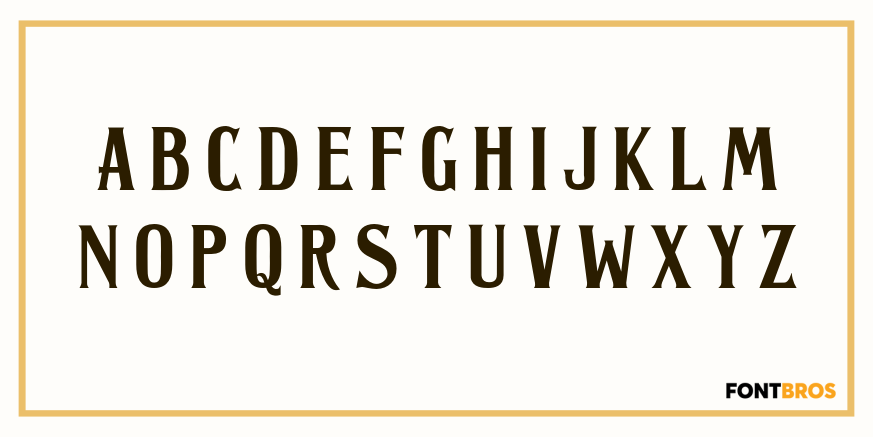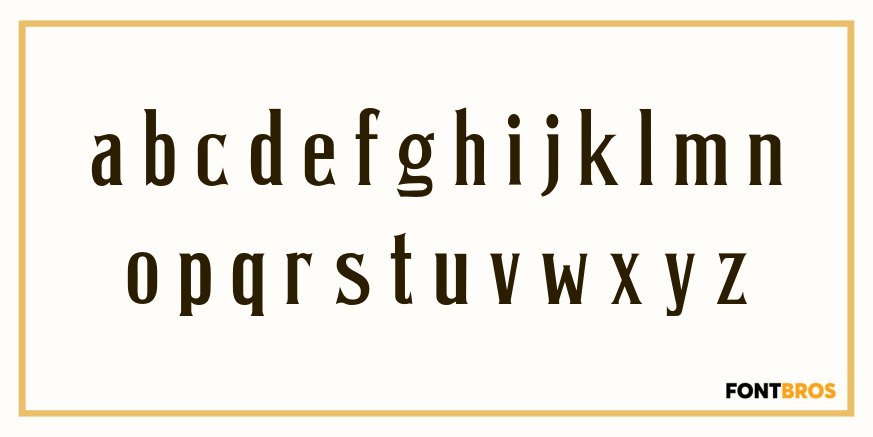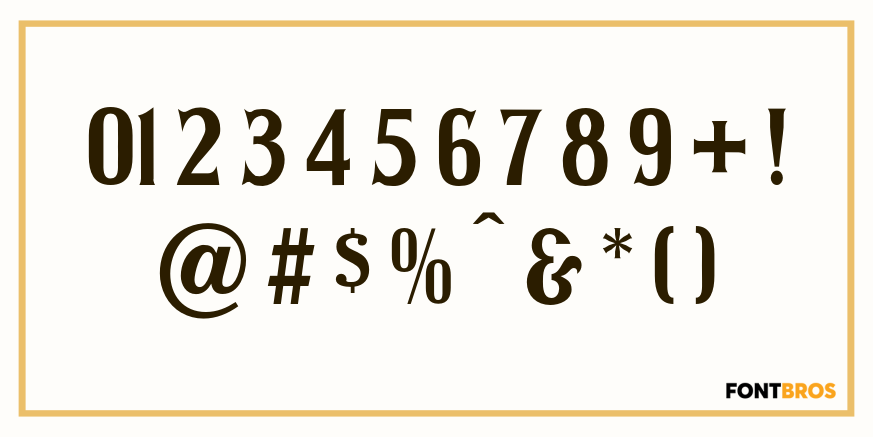
Fairmont
This is one of the Victorian standards for job printing issued by the Barnhart Brothers and Spindler Foundry about 1891. It looks old without being decorative, a good counterpoint to fancier types in today's old fashioned typography.